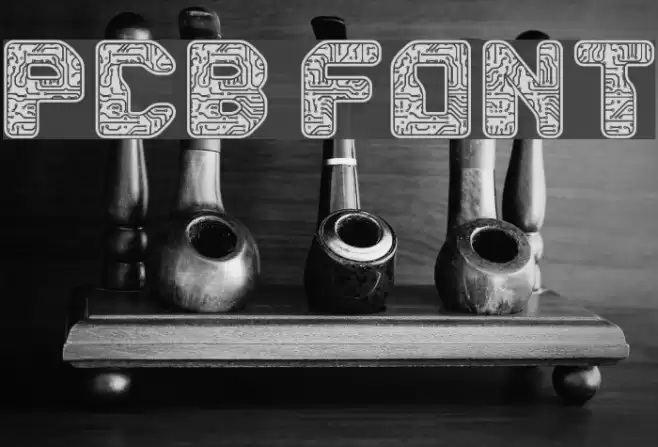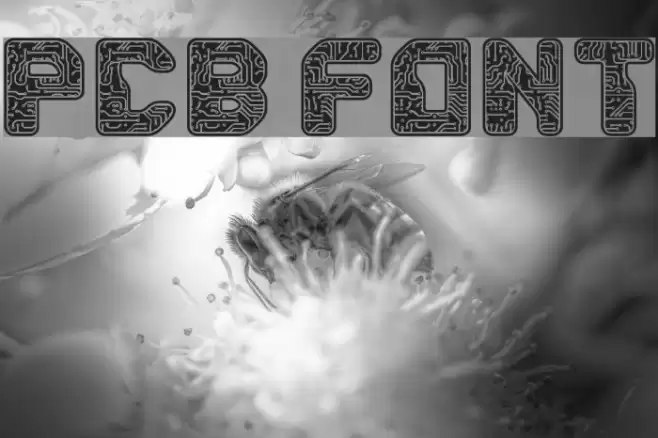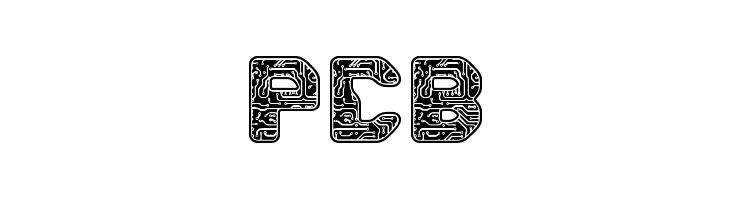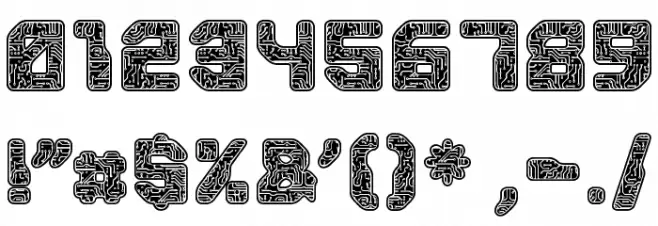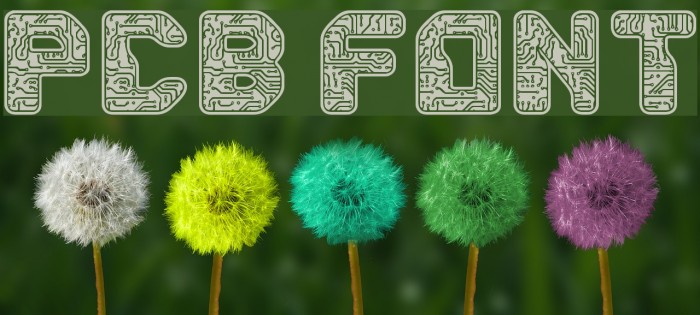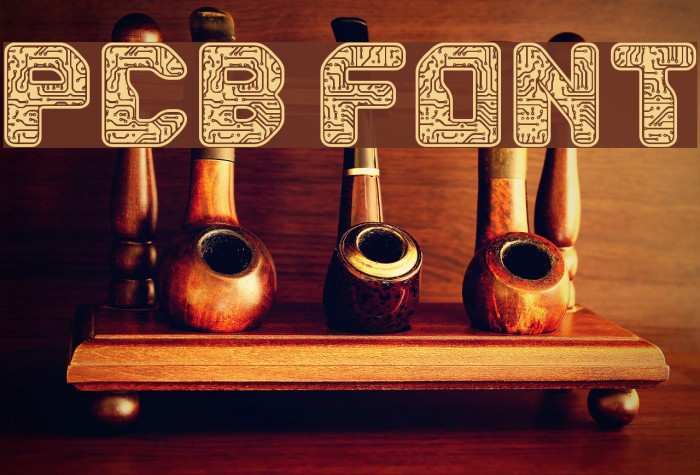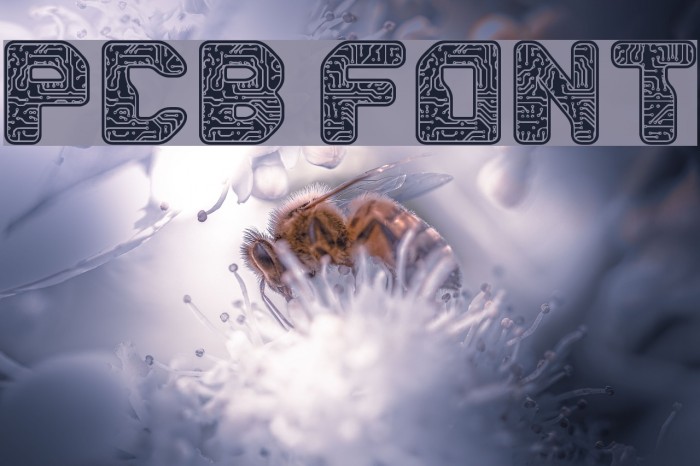
PCB Font
PCB Description
This font features a unique and intricate design reminiscent of printed circuit boards, with each character filled with detailed line work and patterns. The bold and blocky letterforms are enclosed in a solid outline, creating a striking contrast between the filled interior and the clean edges. The design is highly decorative, making it ideal for projects that require a technological or futuristic aesthetic. The characters are evenly spaced, ensuring readability despite the complex internal patterns. This font is perfect for creative projects that aim to capture the essence of modern technology and innovation.
A decorative font with intricate circuit board patterns inside bold, blocky letterforms from Decorative fonts.
- Proposed Projects: Ideal for tech-themed posters, branding for electronics, digital art projects, and futuristic designs.
- Overall Style: Modern, Decorative